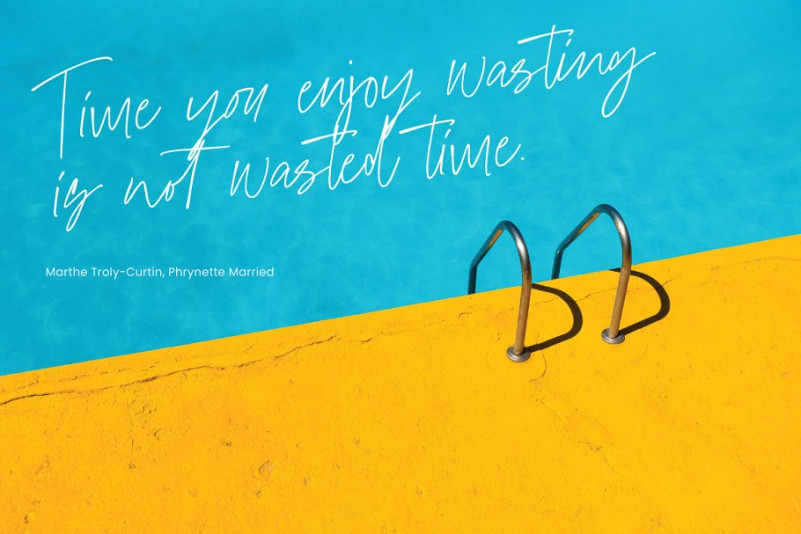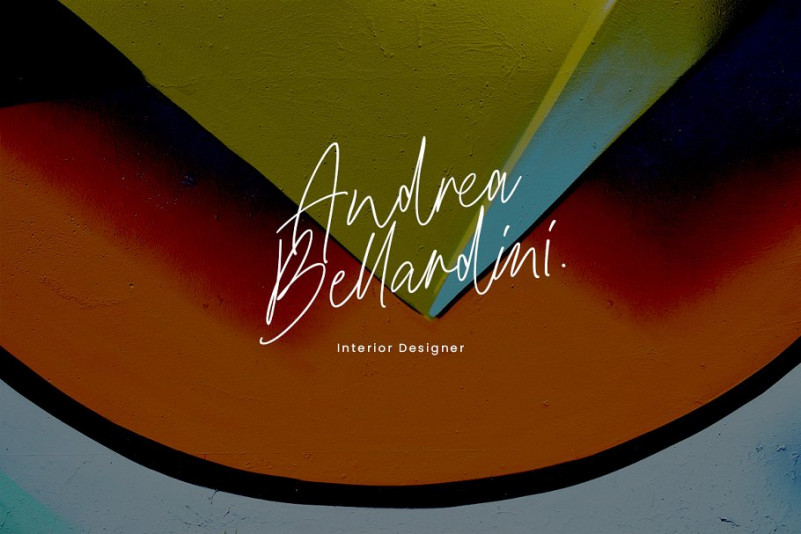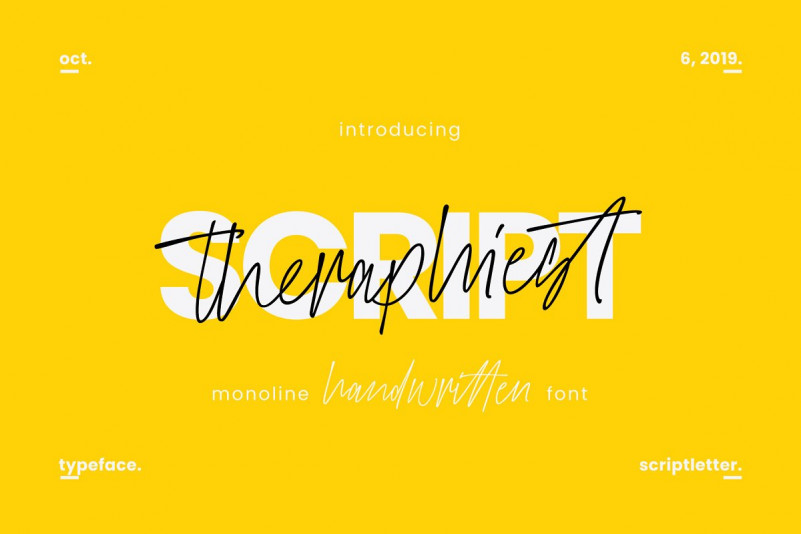
Theraphiest Font
Introducing: Theraphiest Font is a handwritten font. The style of handwriting and irregular but still elegant, and you will enjoy to use this font style.
Theraphiest Font is perfect for branding projects, homeware designs, product packaging – or simply as a stylish text overlay to any background image.